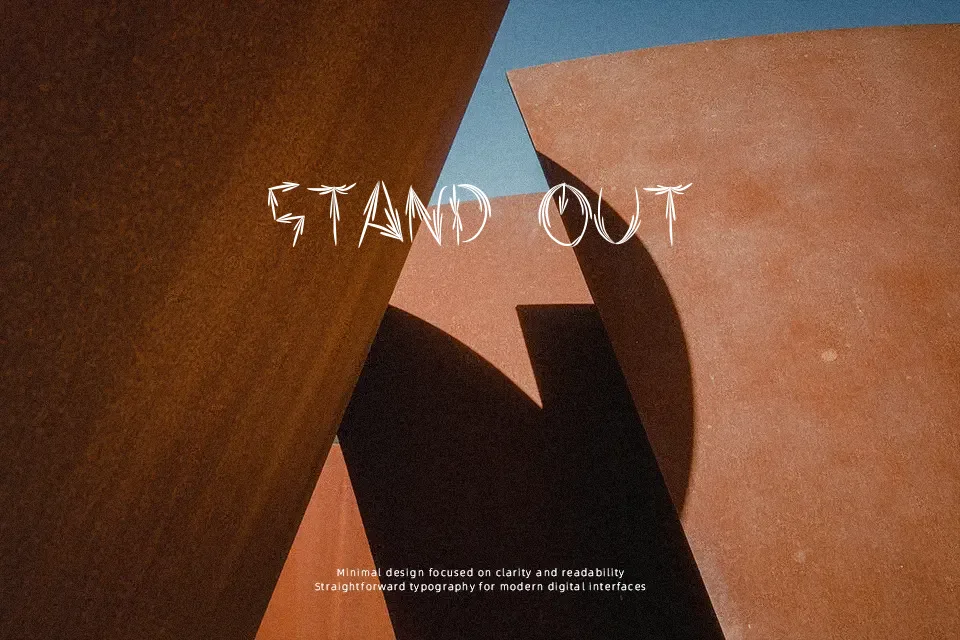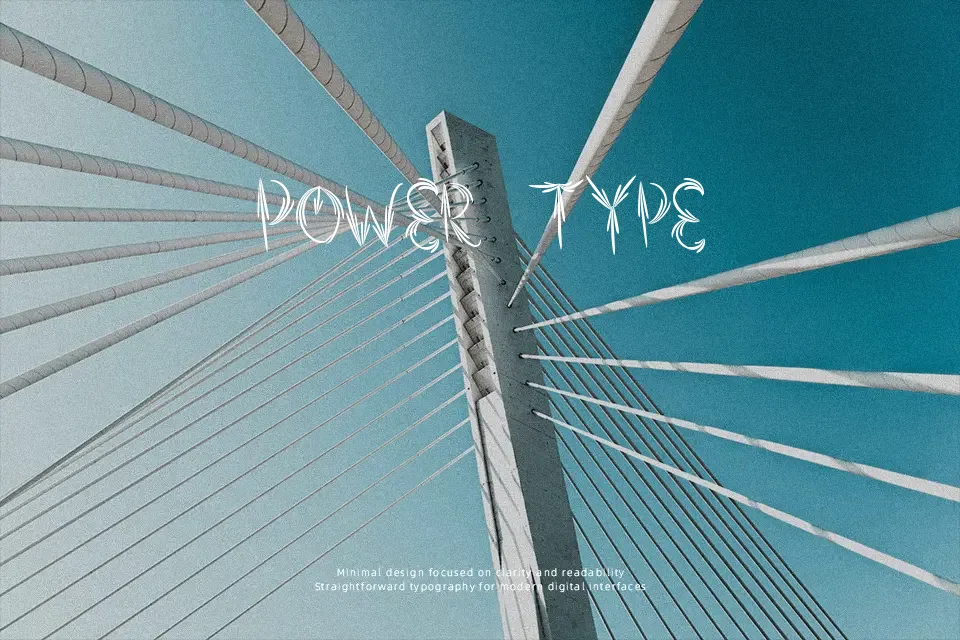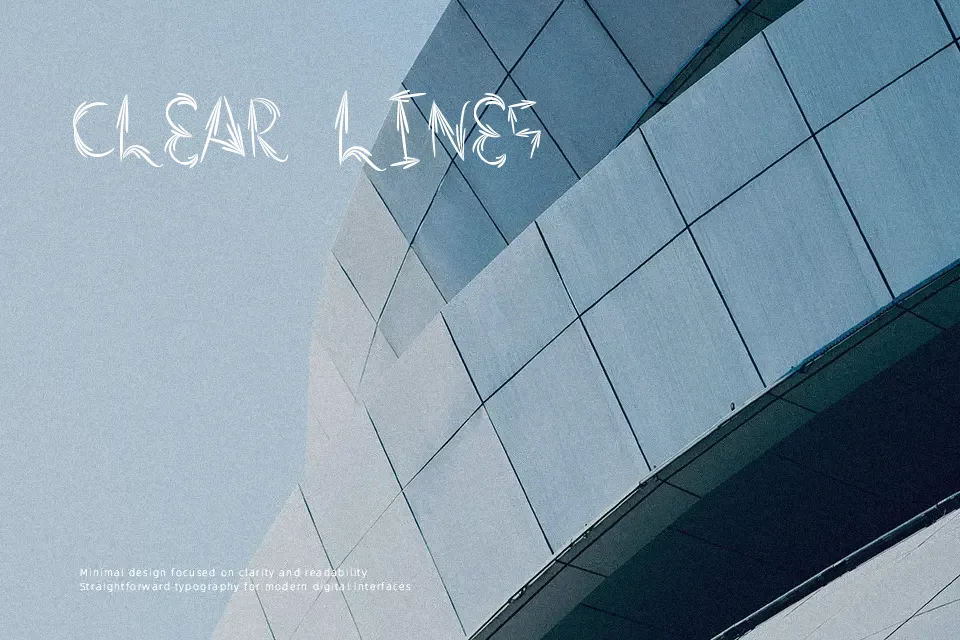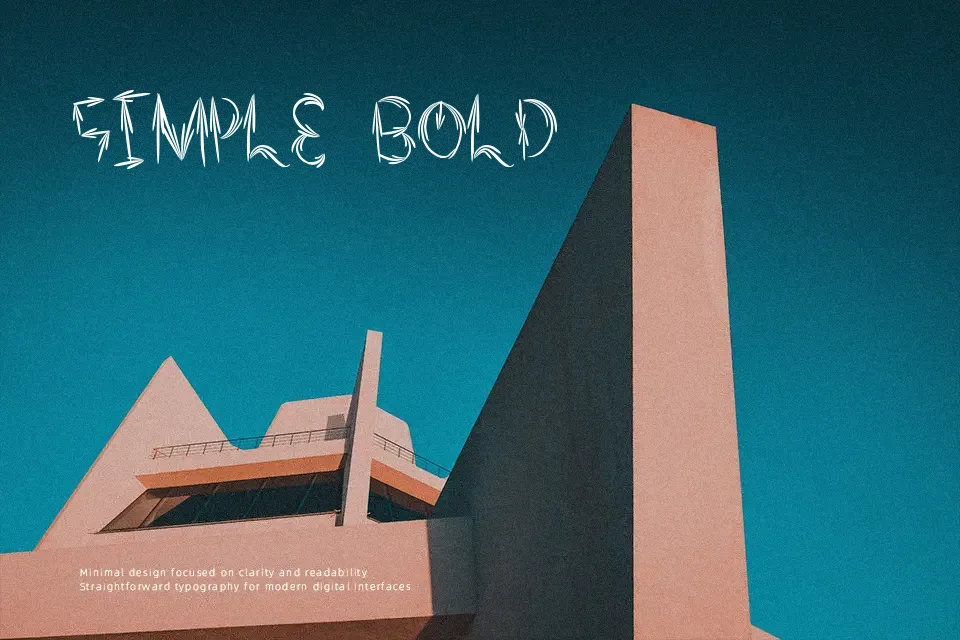
Autumn Two Font
The letterforms in Autumn Two carry a hand-crafted, slightly irregular quality — strokes feel deliberately imperfect, giving each character a low-contrast, textured personality rather than the clean geometry of a refined display face. It sits in decorative territory, leaning toward seasonal and thematic design work rather than general-purpose use. Use it for Halloween event flyers, autumn festival signage, or artisanal product labels where rough warmth reads as intentional style. That said, the font struggles at small sizes — spacing can feel cramped and readability drops quickly in body-length text or dense layouts. Designers who need reliable legibility across print and screen should look elsewhere; this one earns its place specifically when atmosphere is the priority, not clarity.
Best For:- Halloween and harvest season event posters
– Autumn-themed packaging labels
– Seasonal social media headers
– Spooky or rustic themed logo treatments
Not Ideal For:- Body text or long-form reading
– Corporate or professional branding materials
– Small-size print applications
– Multilingual or extended character-set layouts
Perfect for branding, halloween, and holiday, with a creative and decorative style.